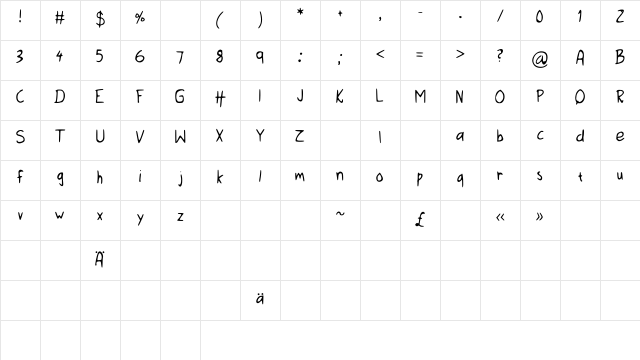
Complete I_NEED_HELP Medium glyph index. Displaying only characters natively supported by I_NEED_HELP Medium font.
I_NEED_HELP is a composed and adaptable typeface that performs quietly and consistently across a wide range of design contexts.